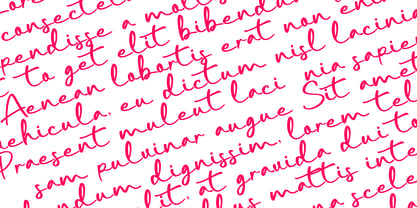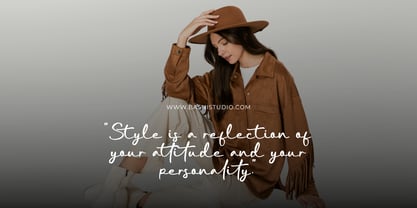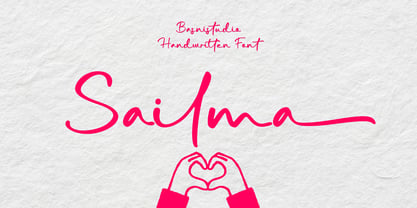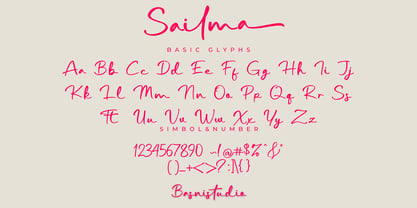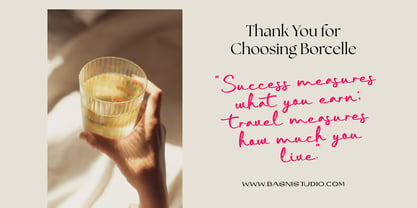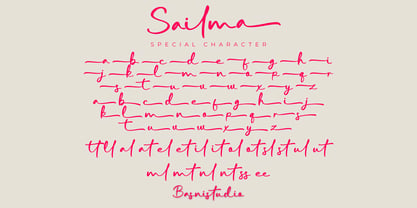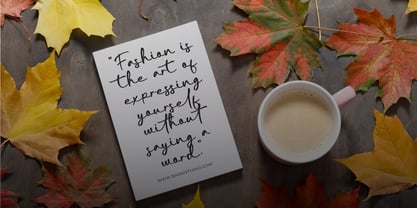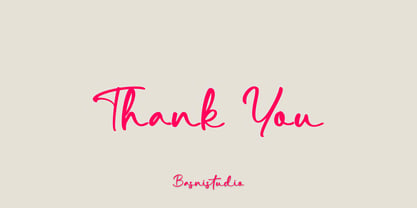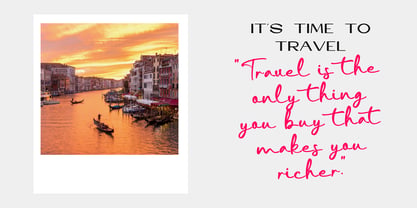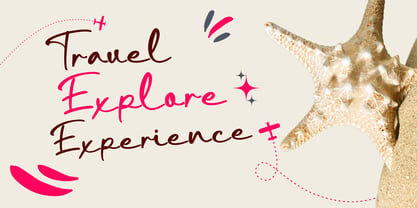
Sailma
A família de fontes Sailma foi desenhada por Bery Arisandi e publicada pela Basnistudio. Sailma contém 1 estilos. Saiba mais sobre esta família
Sailma – Handwritten Font
Handwritten Font Created with real pen strokes for a natural look and casual touch to everything from branding and social media to invitations and packaging.
Natural & Bold– Perfect for tagline, quotes, greeting cards, and more
Authentic Handwritten Feel – Created with real pen strokes for a natural look
Whether you’re building a powerful brand identity or crafting a standout design,
Sailma – Handwritten Font Created with real pen strokes for a natural look gives you the creative edge you need.
• Uppercase & lowercase letters
• Swashes
• ligatures
• Numbers & punctuation